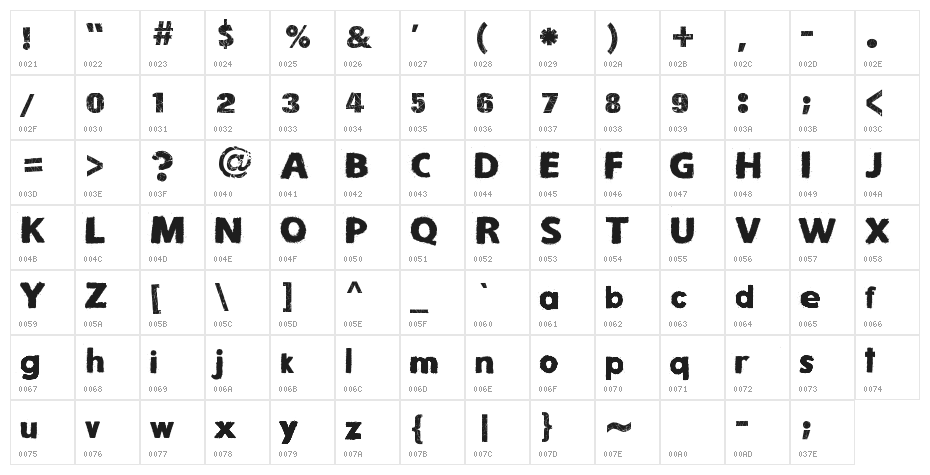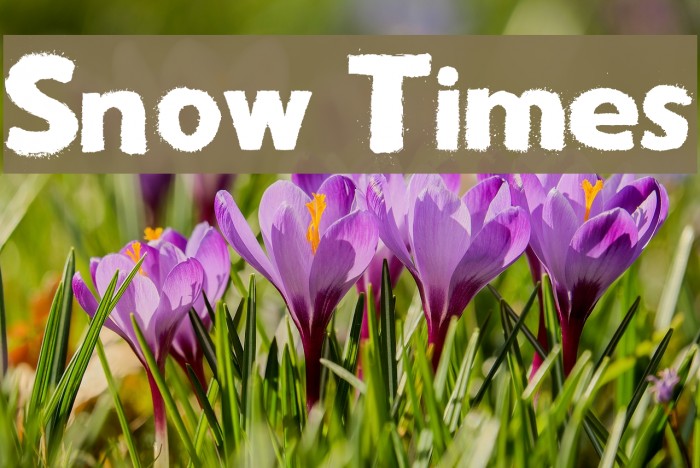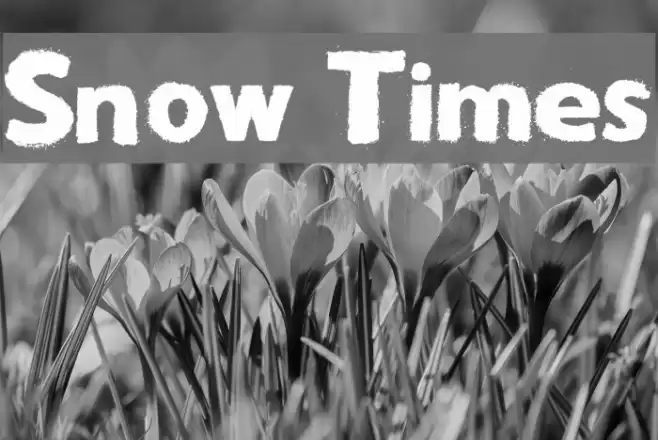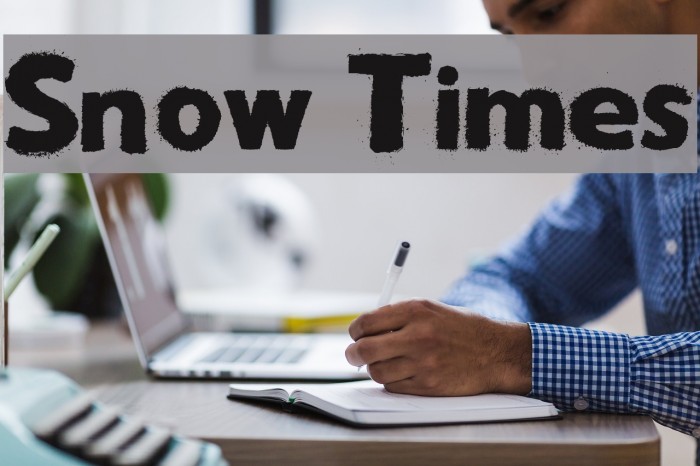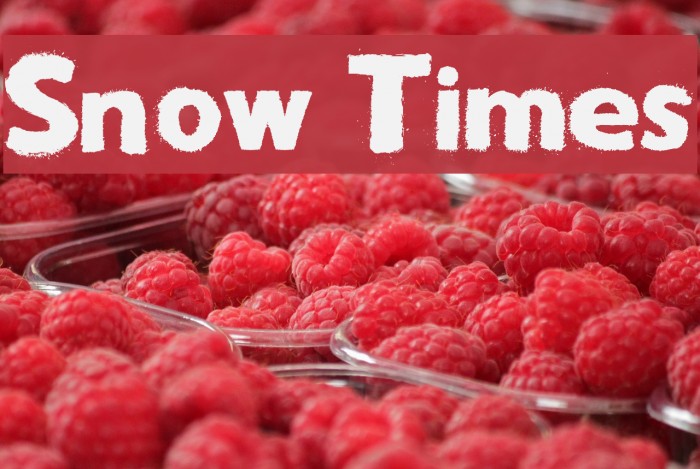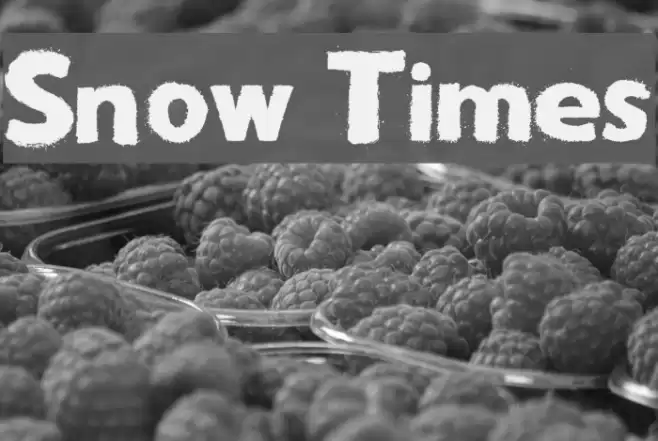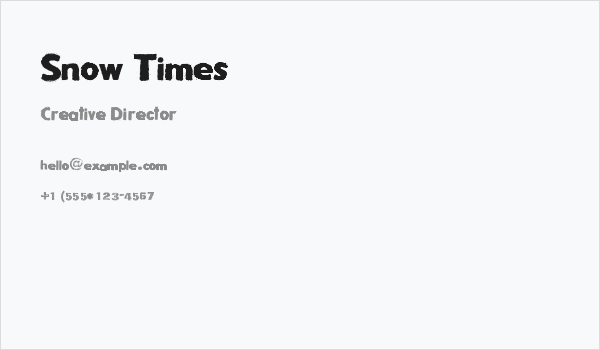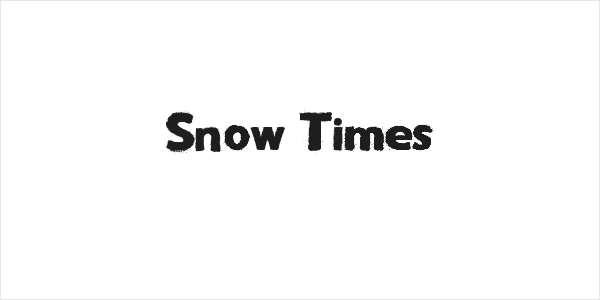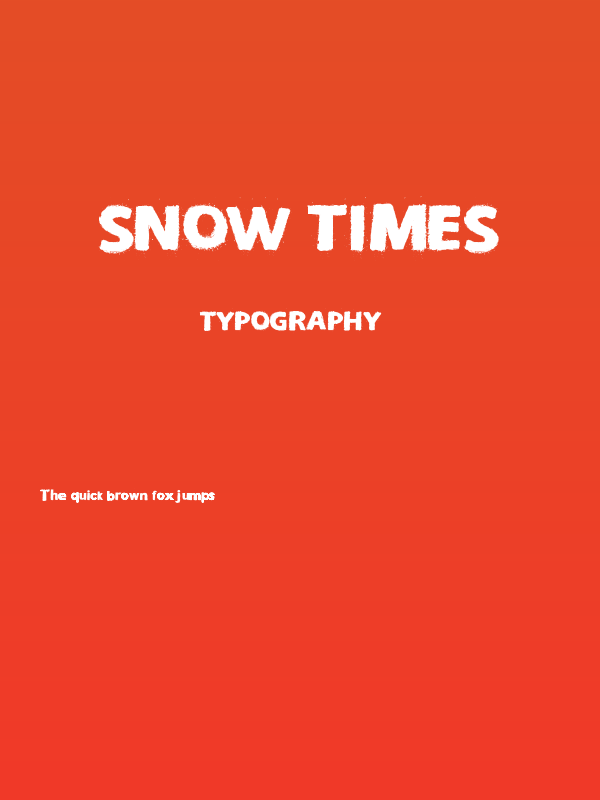
Snow Times Font
Snow Times Description
This font features a bold and rugged design with a distressed texture that mimics the appearance of snow or frost. The characters are thick and sturdy, giving a strong visual impact. The uppercase and lowercase letters maintain a consistent weight, while the numbers and special characters share the same textured style. The font's unique appearance makes it stand out, ideal for creating eye-catching designs that require a touch of winter or ruggedness.
| Proposed Projects | Perfect for winter-themed posters, holiday cards, outdoor adventure branding, and rustic product packaging. |